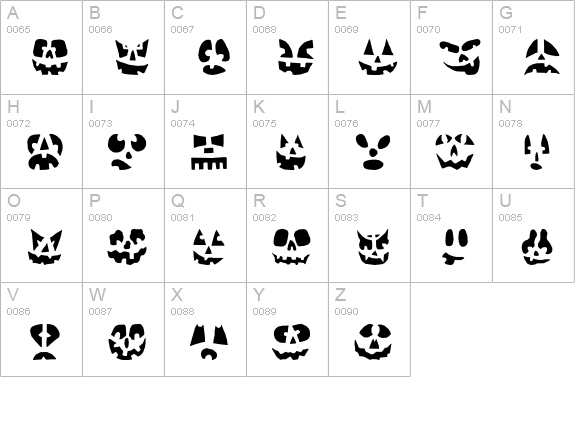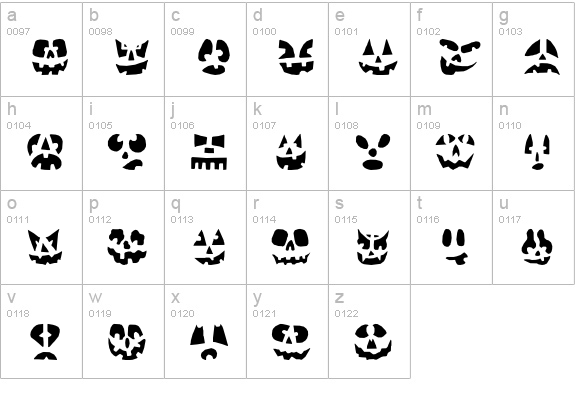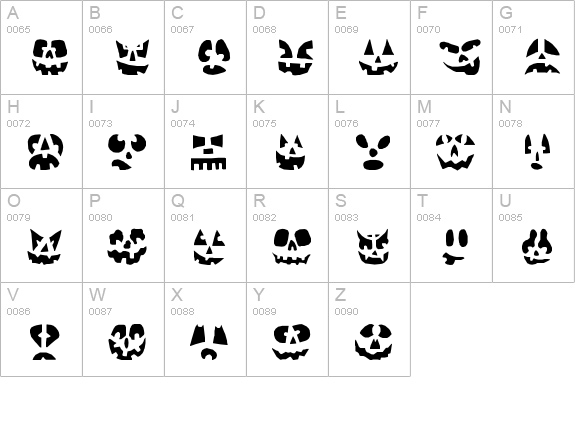
Punkinhead font is a playful and charming typeface that exudes a whimsical and lighthearted feel. With its unique combination of bold lines and quirky curves, this font is perfect for adding a touch of fun to any design project. Whether you're working on a poster, greeting card, or branding materials, Punkinhead font will surely make your text stand out. And the best part? Punkinhead font is available for free download at FontsMarket.com. Simply head over to the website and grab this delightful font to add a splash of personality to your creations. Don't miss out on this fantastic opportunity to enhance your designs with the free Punkinhead font!